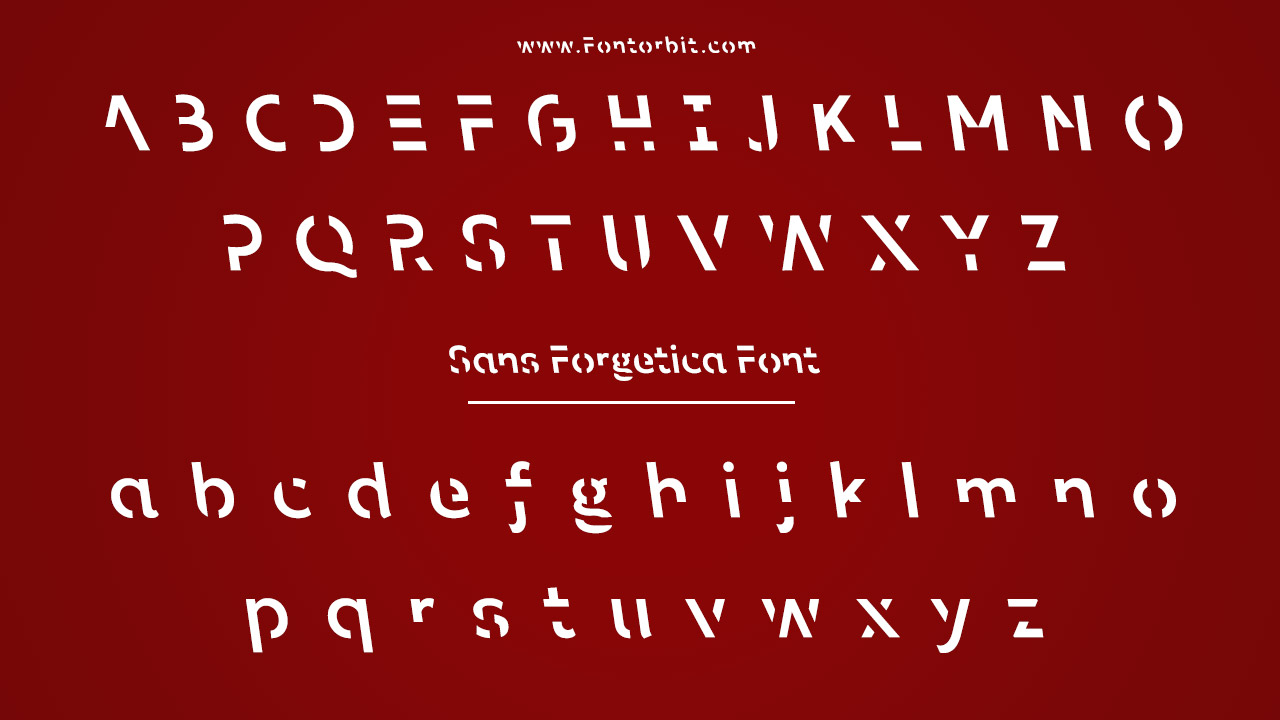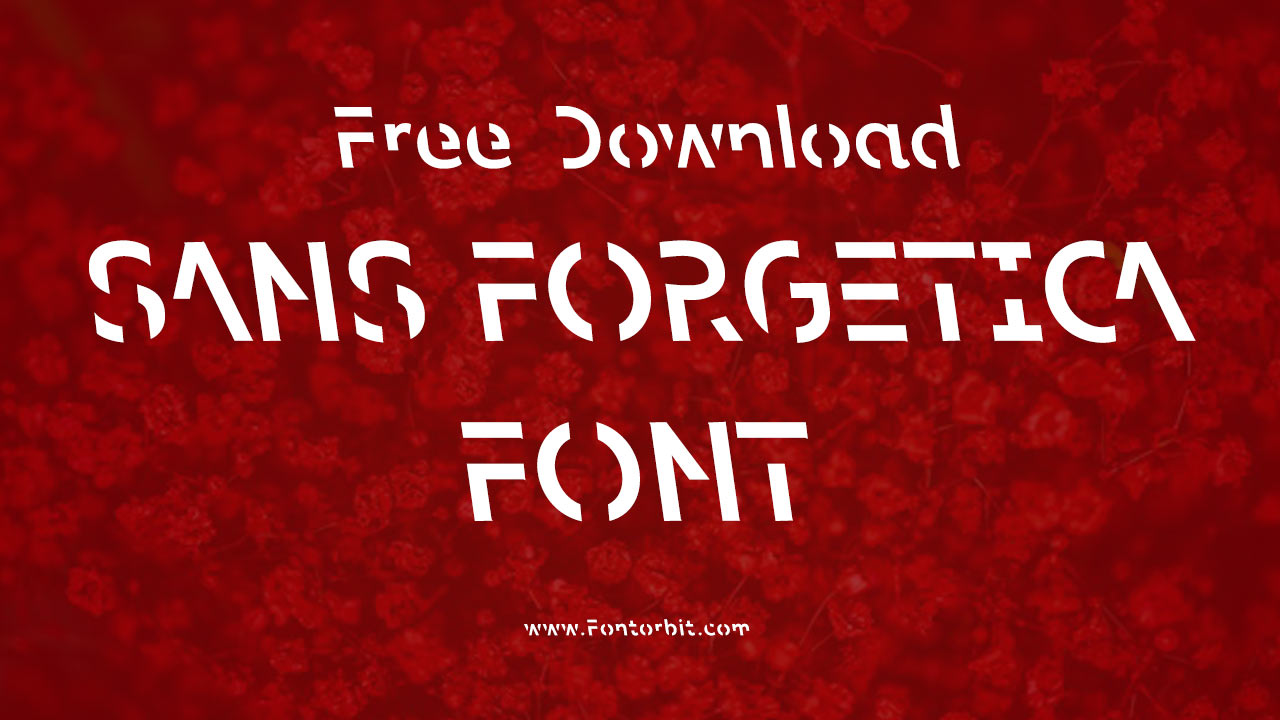
Sans Forgetica is a unique sans-serif font designed by a multidisciplinary team at RMIT University in Melbourne, Australia.
Released in 2018, this font aims to aid memory retention by introducing a slight reading difficulty, leveraging the psychological principle known as “desirable difficulty.” Sans Forgetica is part of the sans-serif font family and blends Geometric and Humanist typefaces.
Sans Forgetica stands out with its purpose-driven design aimed at aiding learning by making reading slightly more challenging. The font family consists of the following:
Notable Uses Of Sans Forgetica
- Promoted as a study aid for students to enhance memory retention.
- Integrated into educational materials and study tools for experiments on cognition.
- Used in creative design projects and presentations for its unique, disruptive appearance.
- Available as a Chrome extension to alter web text for memory recall experiments.
- Applied in limited academic and cognitive research settings to explore desirable difficulty’s effects.
- Utilized in marketing campaigns and articles highlighting innovative typography solutions.
- Educational Experiments
- Presentations & Posters
- Creative Projects
- Limited Text Use
Sans Forgetica, with its innovative design, stirred excitement in the world of typography and education. However, while it offers an interesting concept, evidence suggests that it does not enhance memory as intended. Still, it remains a creative font choice for specialized uses or experiments in cognitive science.
1.What Is Sans Forgetica?
Sans Forgetica is a font designed to help with memory retention.
2.When Was Sans Forgetica Released?
The font was released in 2018.
4.Does Sans Forgetica Improve Memory?
No, studies have shown that it does not enhance memory retention.
5.What Is Desirable Difficulty?
It’s a learning principle that suggests making tasks slightly harder enhances memory.
7.Is Sans Forgetica Available For Chrome?
Yes, there is a Chrome extension for Sans Forgetica.
8.What Font Family Does Sans Forgetica Belong To?
It belongs to the sans-serif font family.
9.Is Sans Forgetica Legible For Long Texts?
No, it is designed for short passages and might be difficult to read in longer texts.